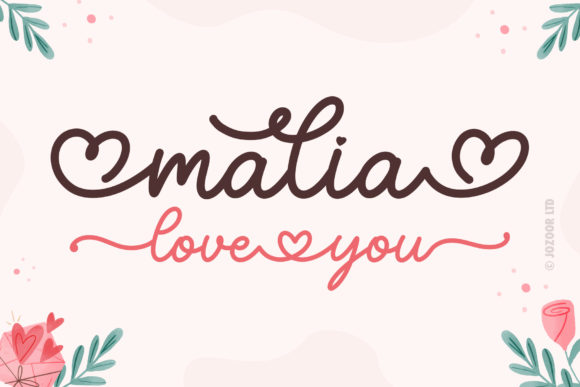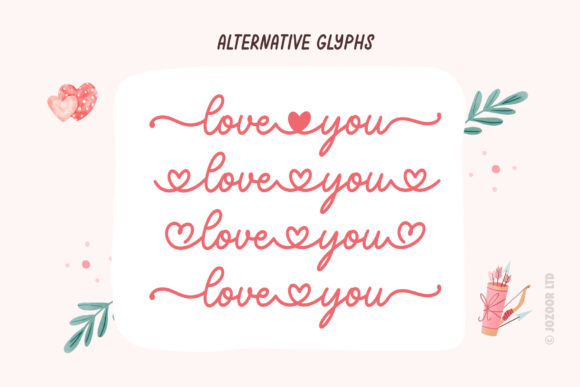
Malia Love You Font: Romantic Handwritten Script for Wedding Design
About the Malia Love You Font
We are excited to introduce Malia Love You Font, a must-have typeface for any serious designer. Malia Love You is a romantic and sweet handwritten hearted font. It feels equally charming and delicate, ideal for Valentine’s Day, wedding invitations, save the date cards, fine art papery, feminine branding, personal gift cards, and any other lovely projects. This font is PUA encoded, which means you can access all of the glyphs and swashes with ease!
Malia Love You Font excels in applications requiring a delicate touch, such as wedding stationery, branding for feminine products, or crafting elegant logos. Its charm works well on short text blocks within larger designs, like headings on greeting cards or short quotes on social media graphics. However, avoid using it for body text or large paragraphs; its handwritten nature makes extended reading difficult.
Pairing Malia Love You with a clean sans-serif like Montserrat for body copy creates a balanced contrast between the script and a more legible typeface. Alternatively, a classic serif such as Garamond adds a touch of timeless sophistication. For a more playful feel, consider pairing it with a geometric sans-serif like Futura.
The font’s core personality is undeniably romantic and sweet, conveying a sense of gentle charm and elegance. It’s best suited for projects and brands that embody femininity, luxury, or handcrafted aesthetics.
Malia Love You Font Usage Examples
Malia Love You Font Example